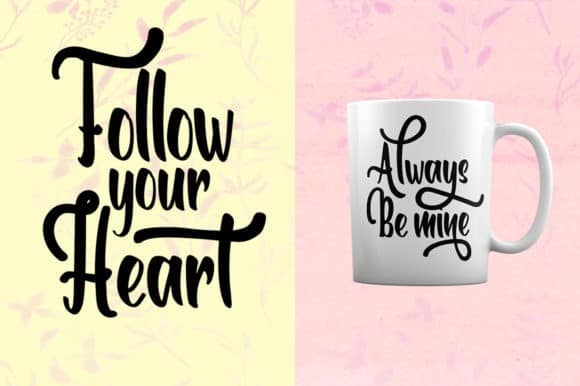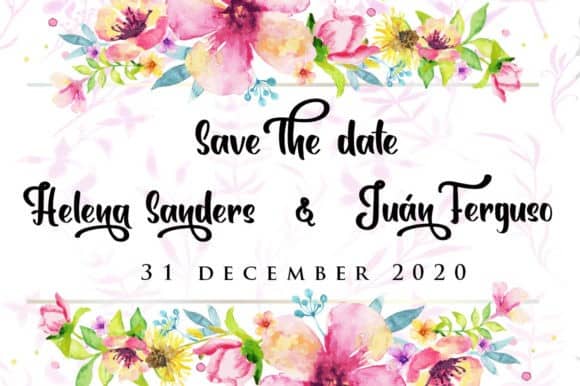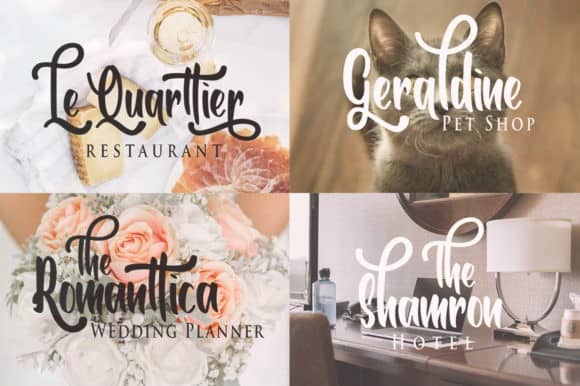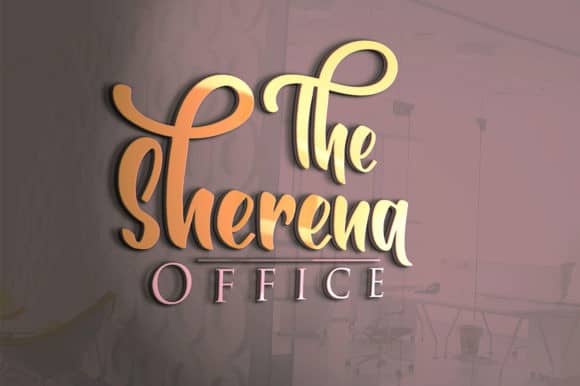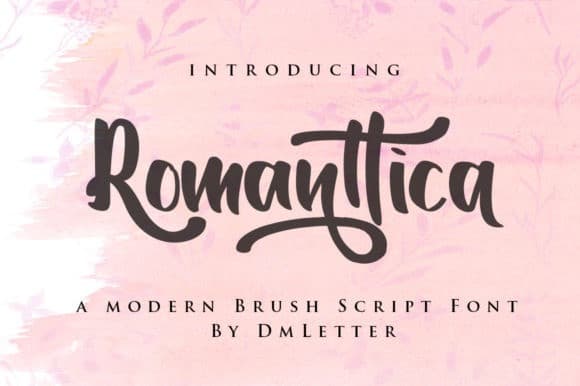
Romanttica Script Font
Dear All. This is a lovely calligraphy script font made with a unique and authentic style. it will make your design project more beautiful. The font is suitable for any design like branding, fashion, print template, quotes, wedding and etc. Romanttica Font designed and shared by dmletter31. Romanttica Script is a modern calligraphy brush style. The nodes are reduces gently so it’s clean and smooth in every character. It can be used for various projects such as invitations, cards, gifts, branding, logos and every other design which needs an elegant touch.